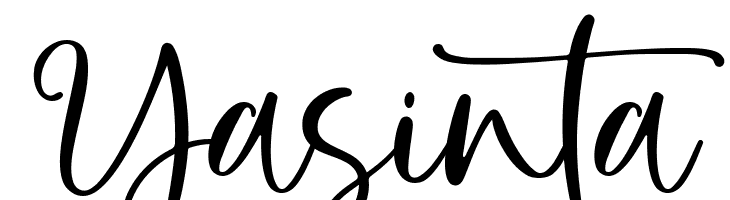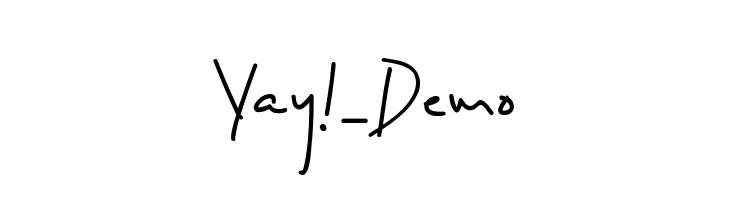
An elegant, decorative font with artistic flourishes and a sophisticated style.
A bold, futuristic font with geometric shapes and consistent stroke width.
A casual, handwritten font with dynamic, slanted strokes and varying thickness.
A decorative font with Christmas-themed icons for festive projects.
A futuristic, geometric font with rounded edges and consistent line thickness.
A bold, jagged font with spiky edges, perfect for dynamic and energetic designs.
A lively and expressive script font with flowing, interconnected letters.
A playful, casual handwritten font with irregular strokes and an organic flow.